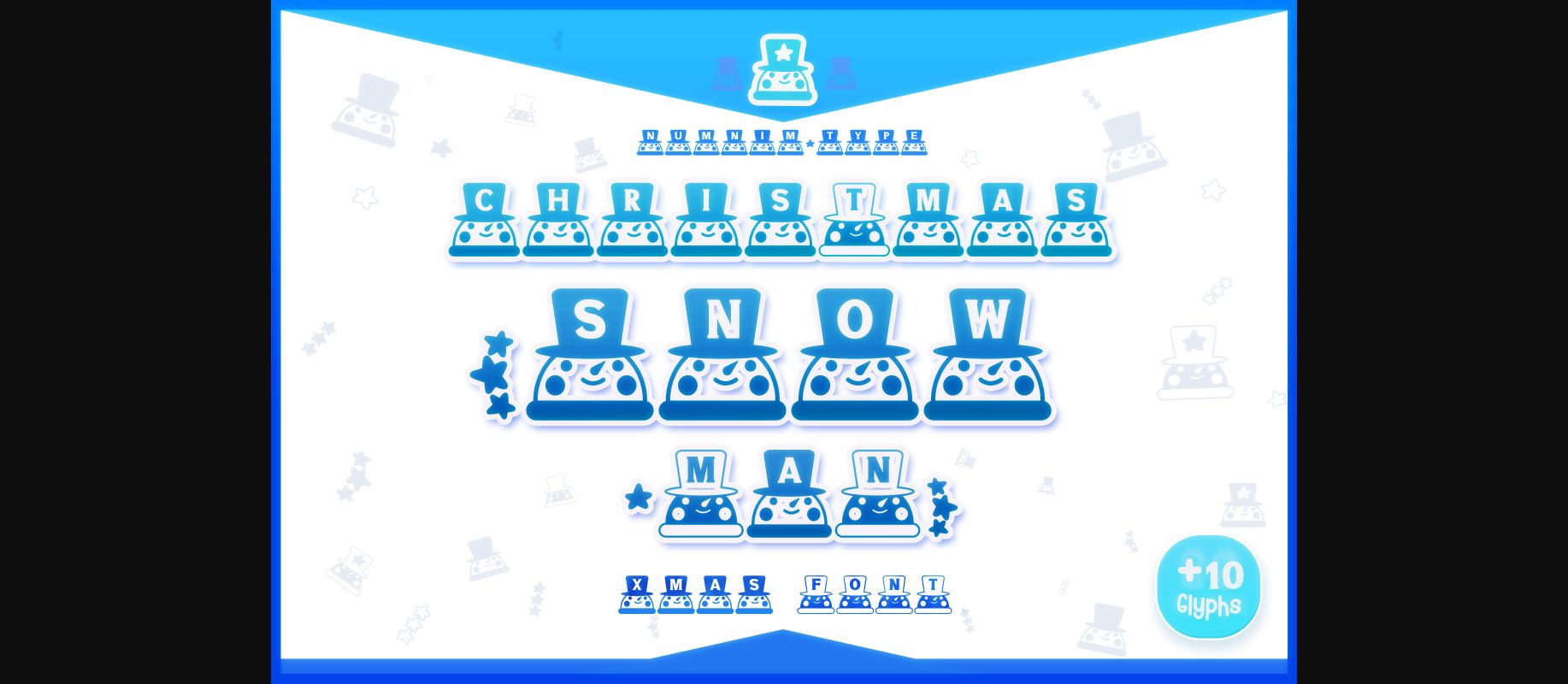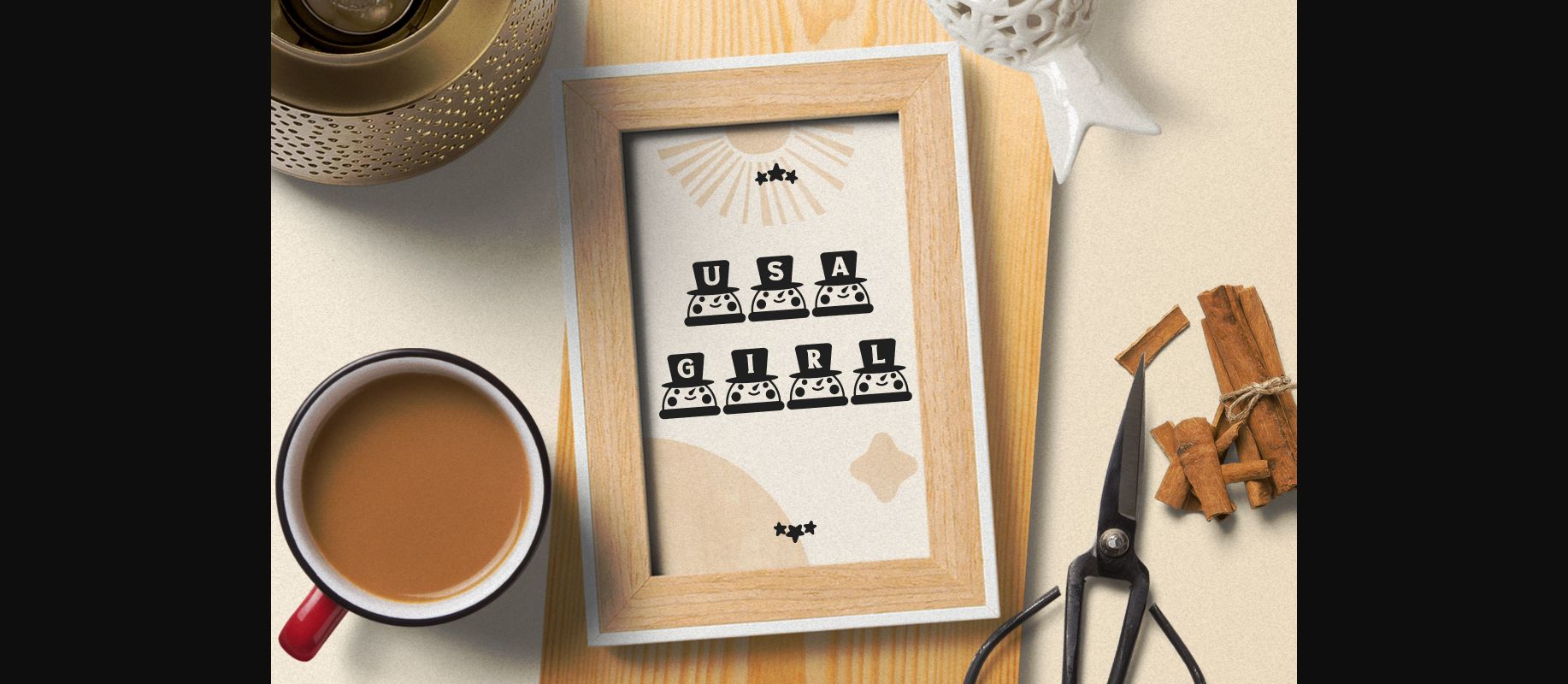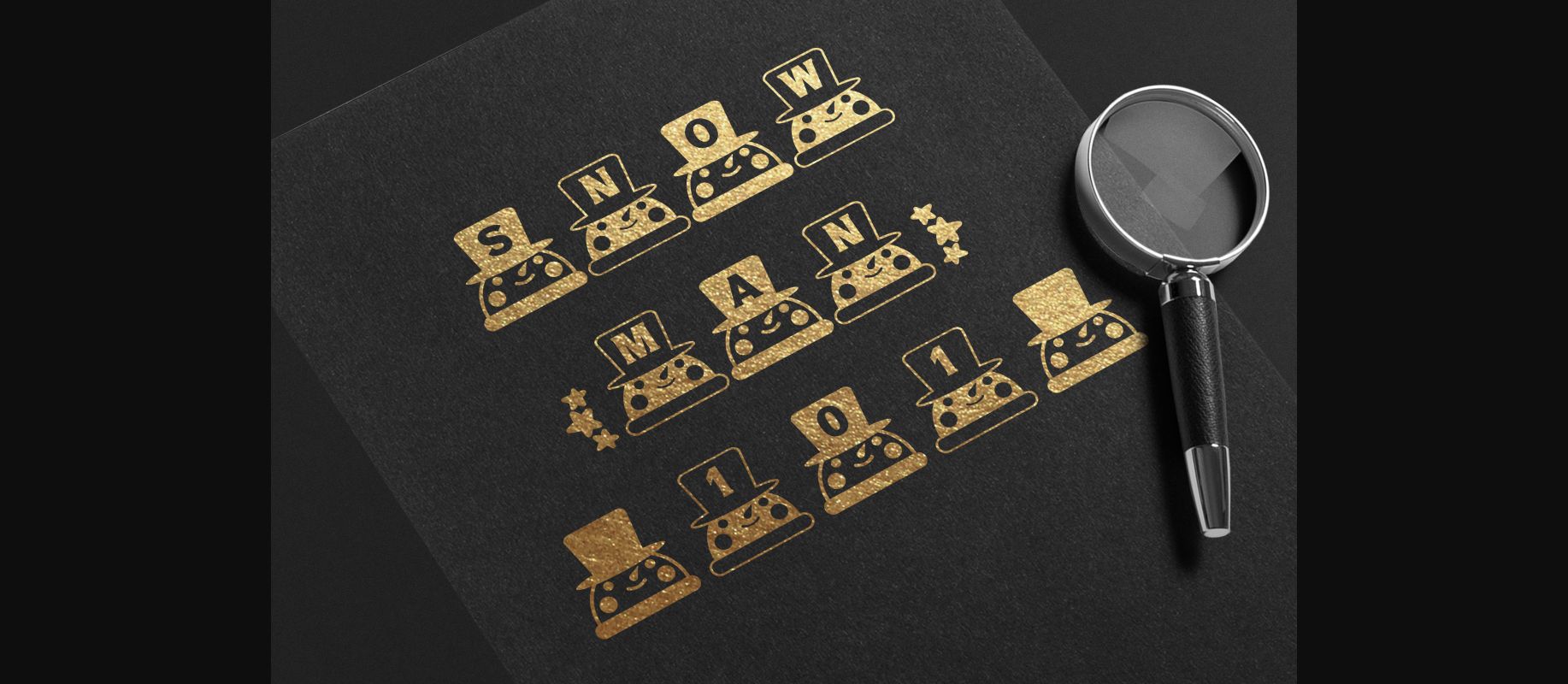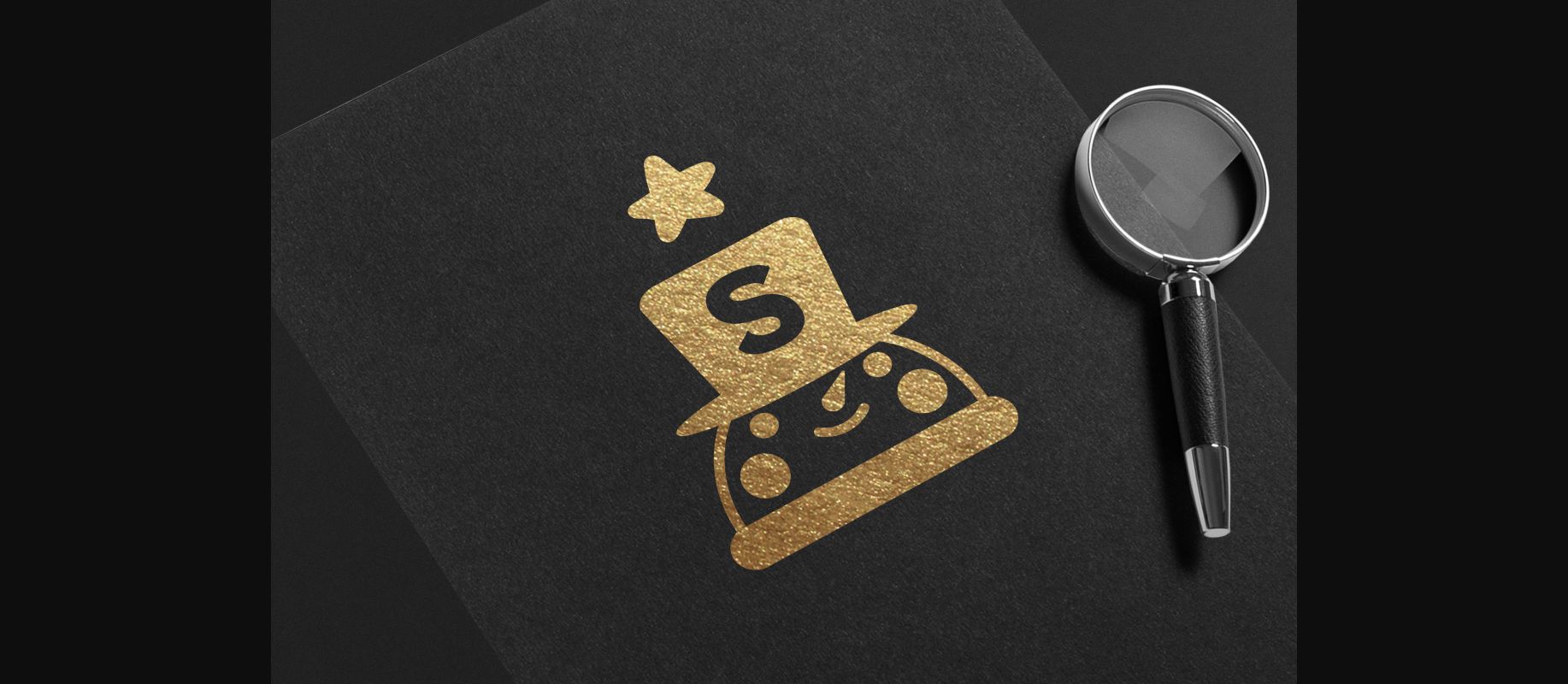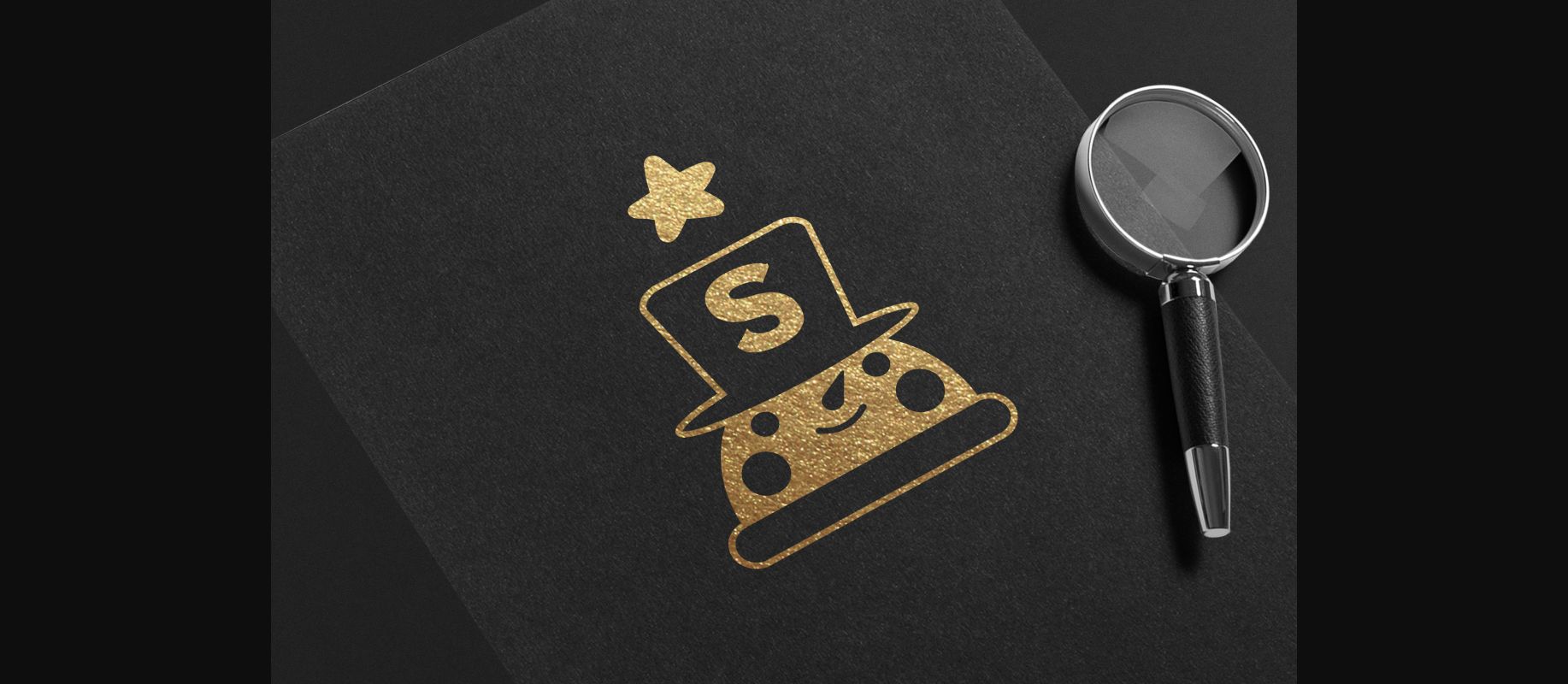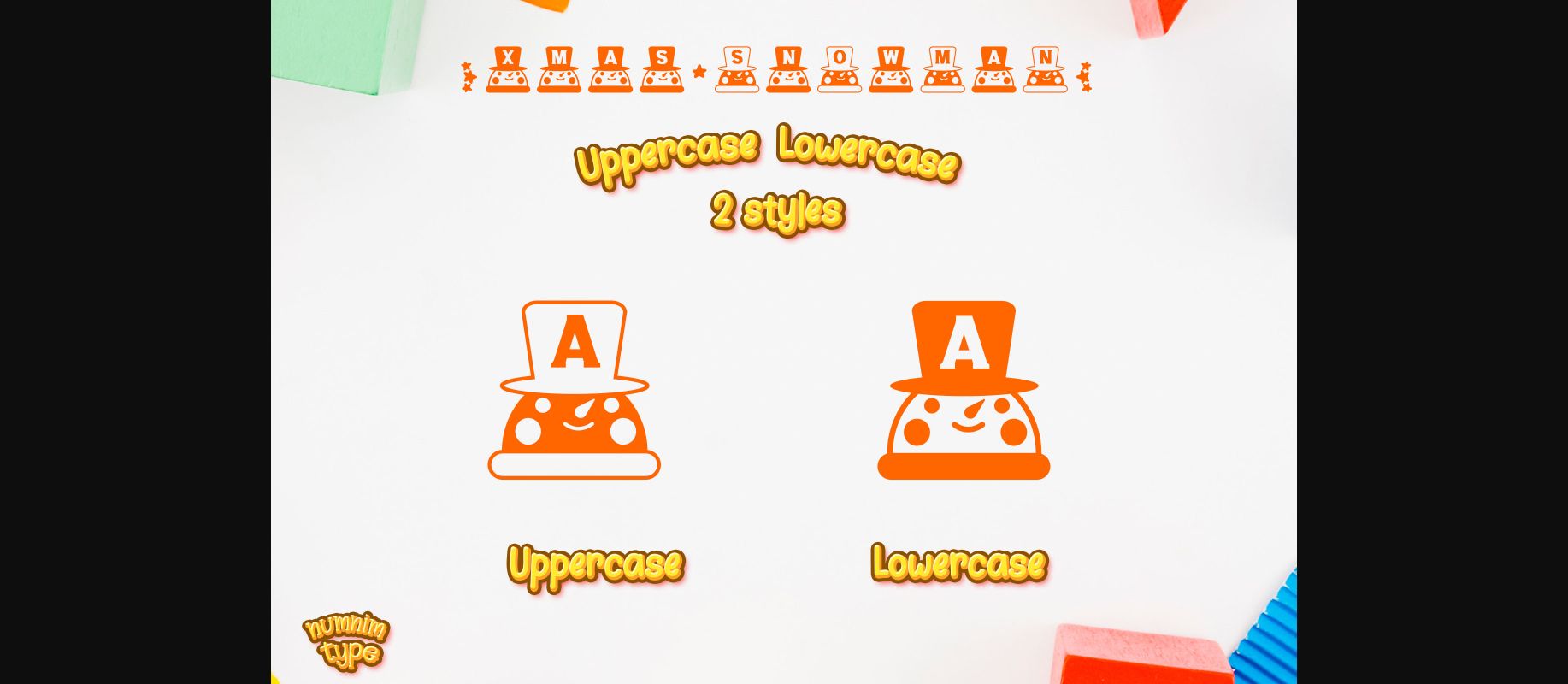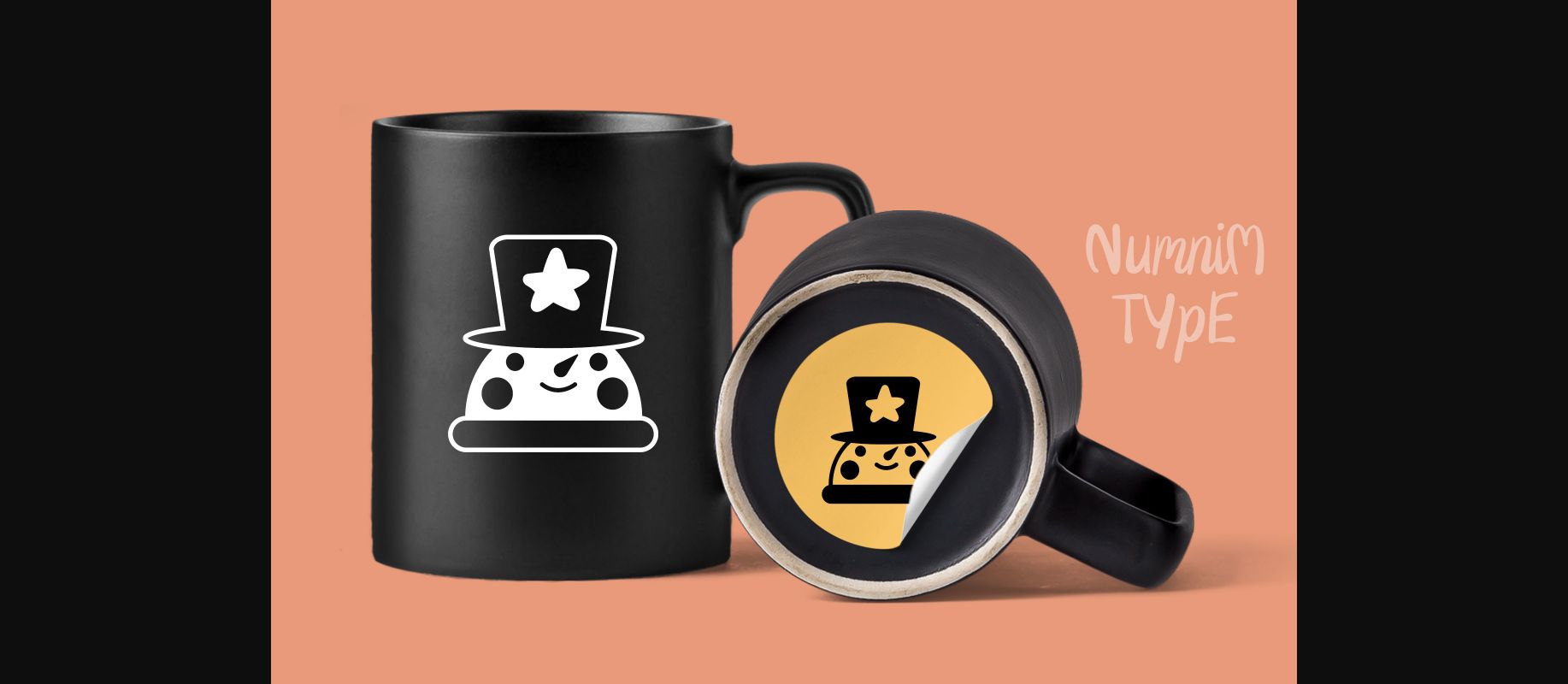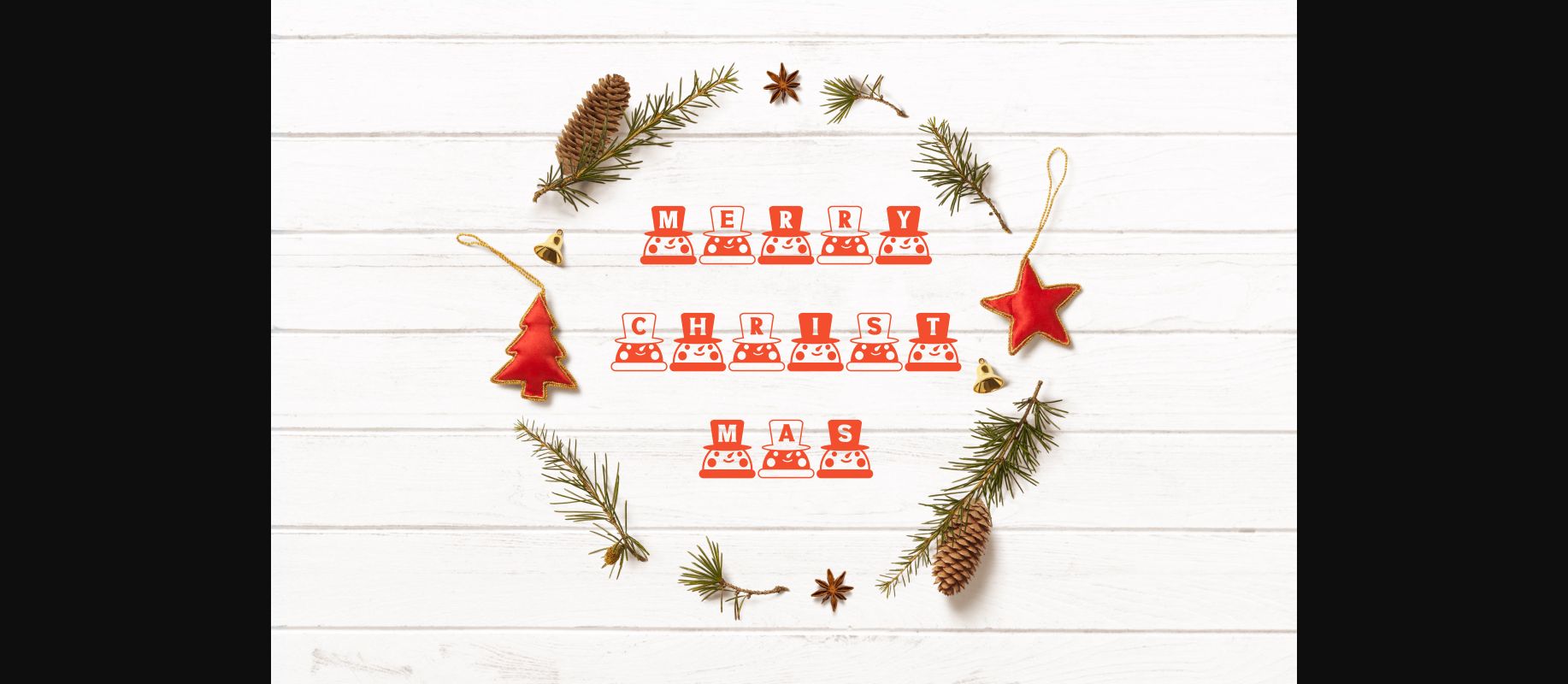
Christmas Snowman is a cool and fun and playful decorative font. Whether you’re using it for crafting, digital designing, presentations or greeting cards making, it’s perfect!